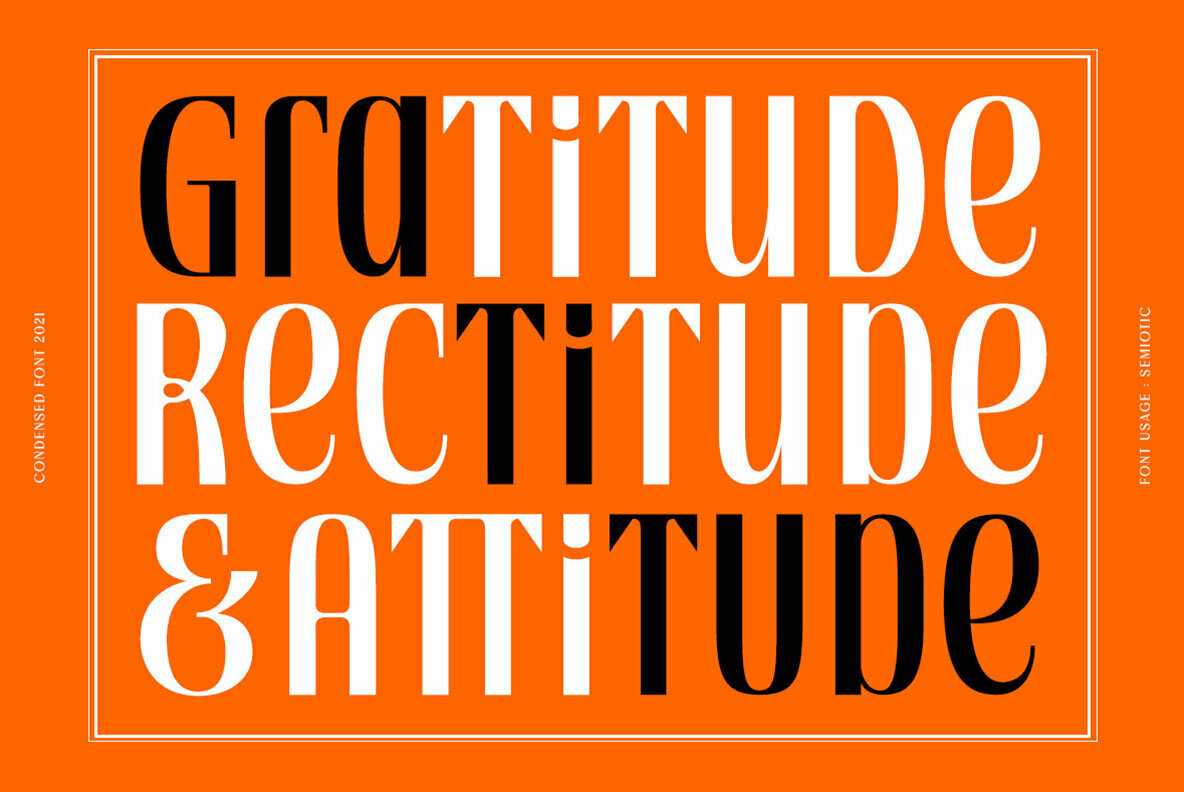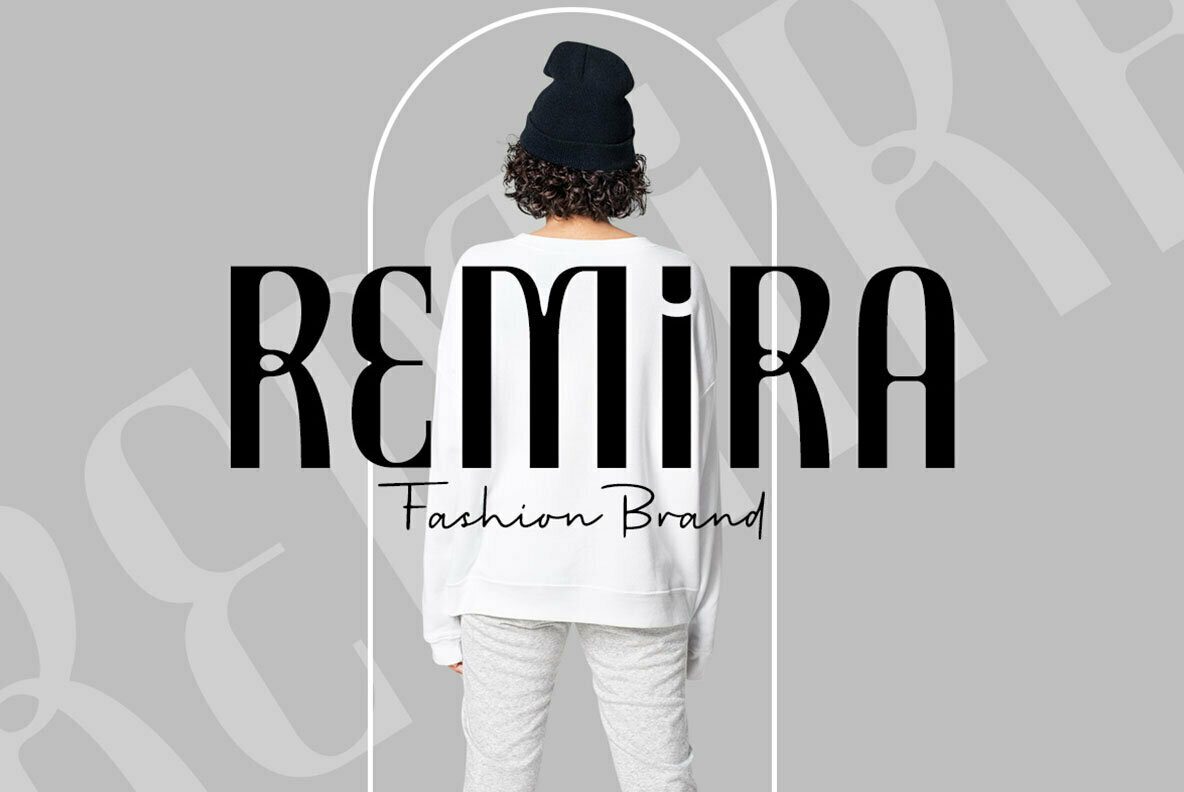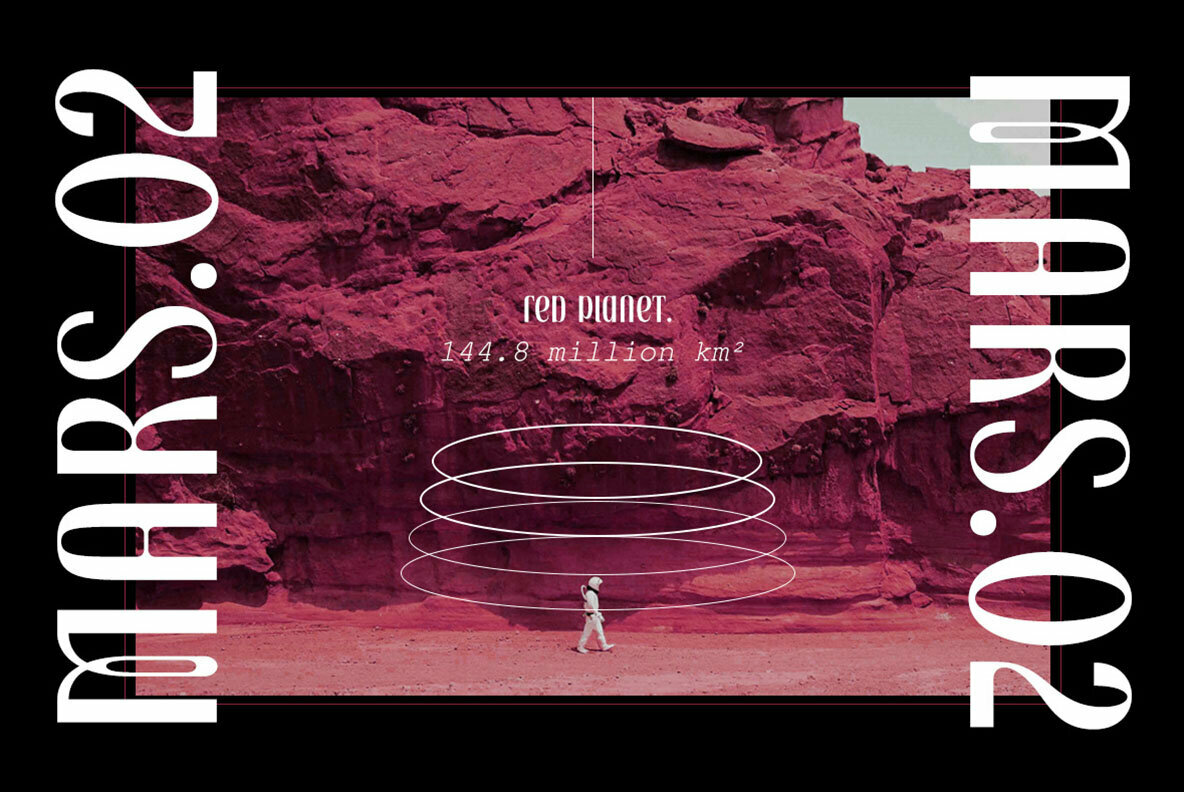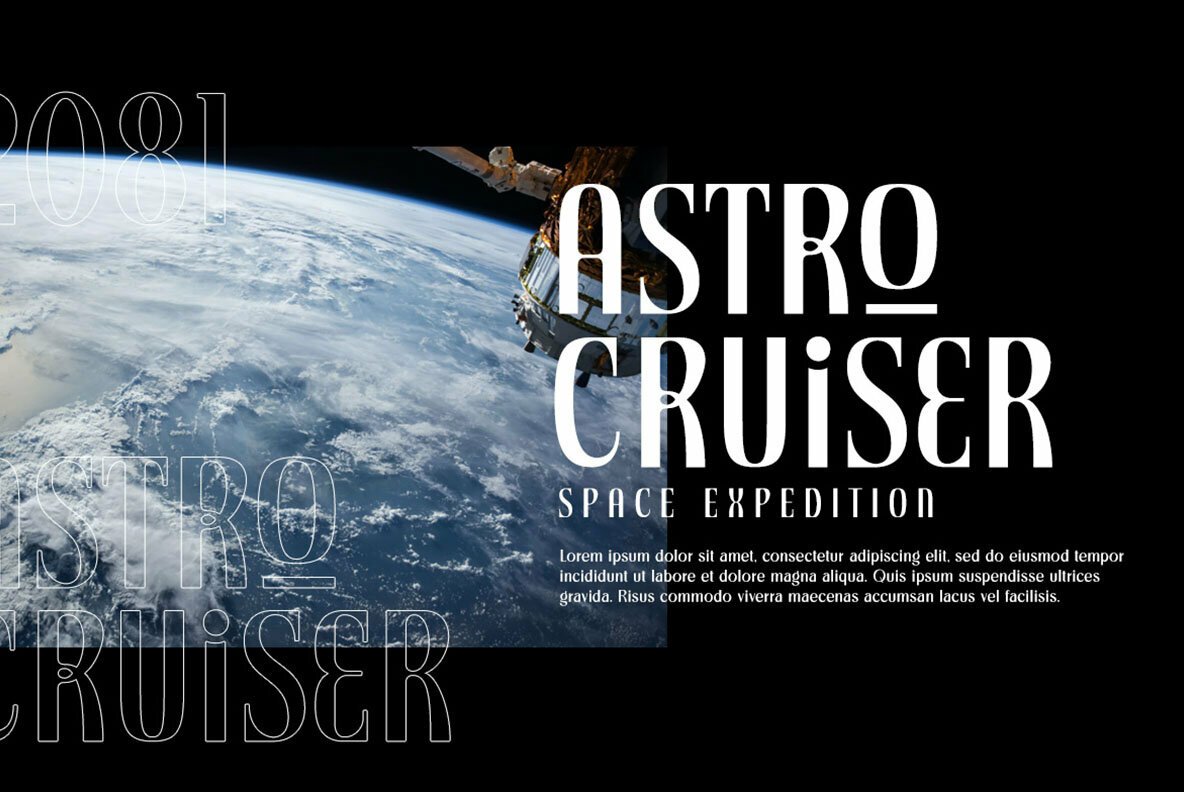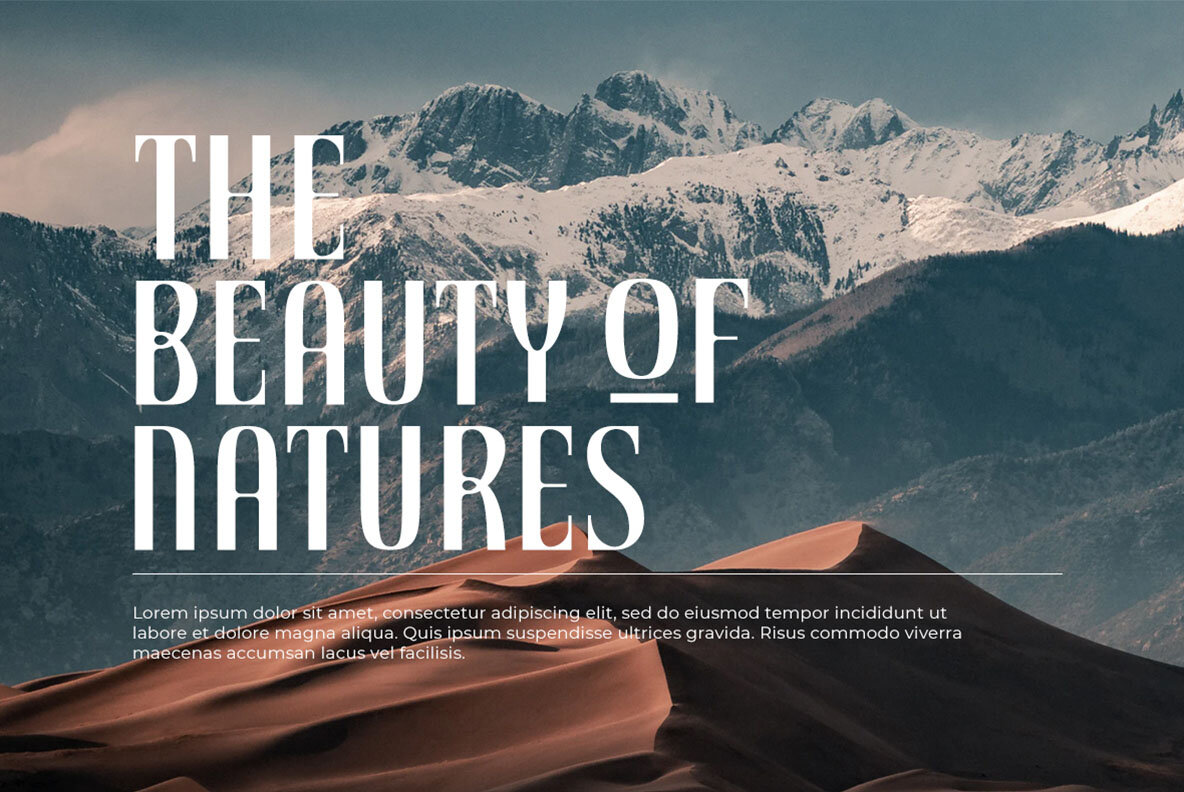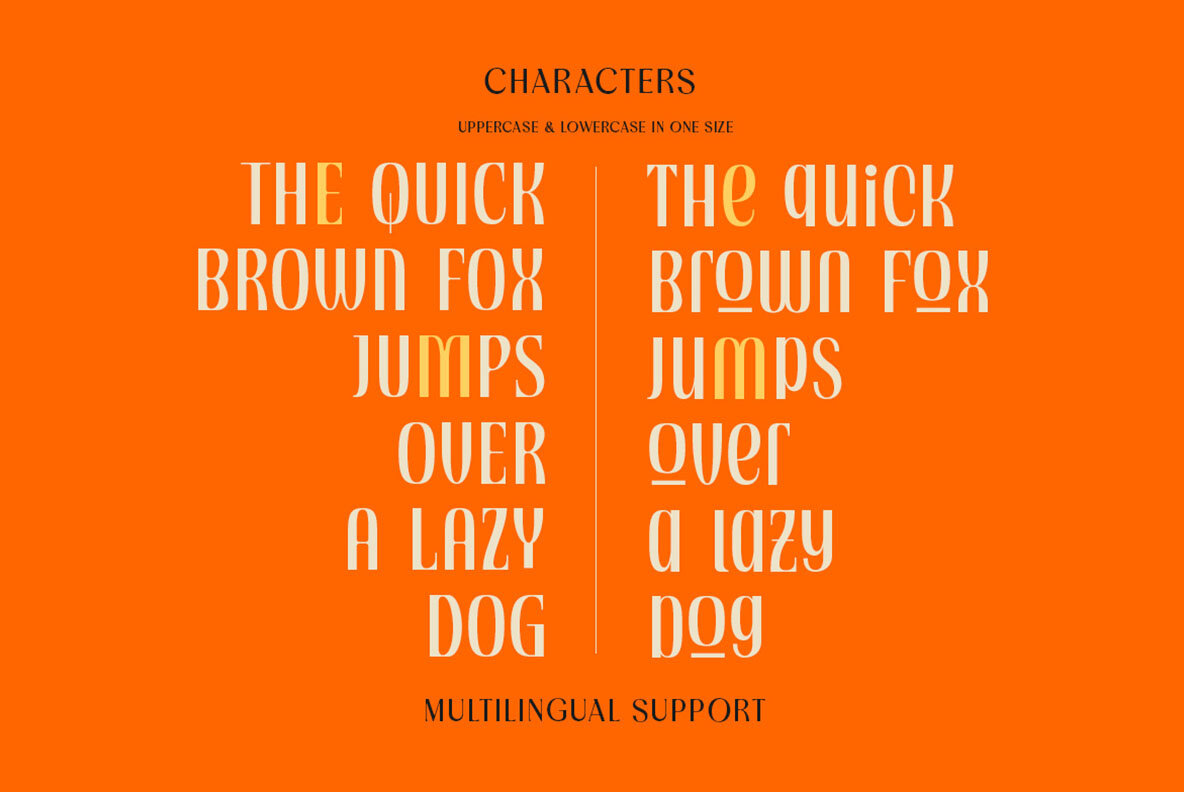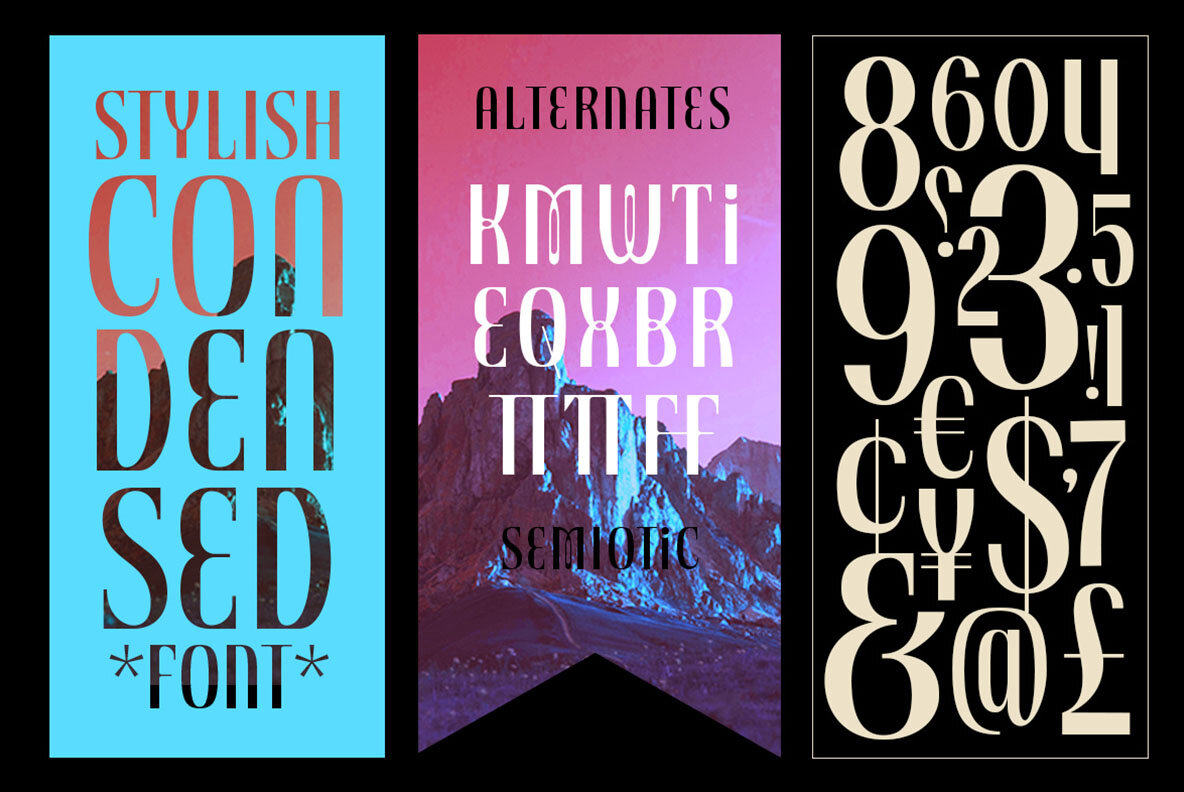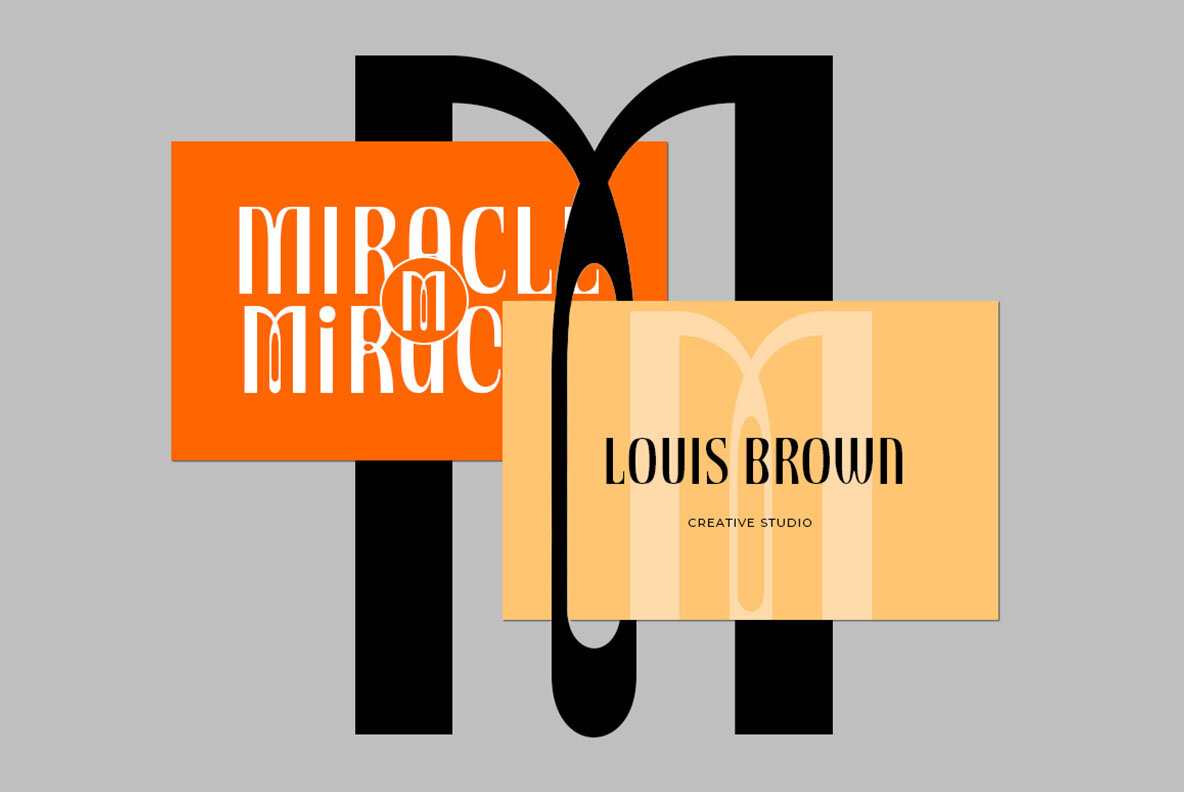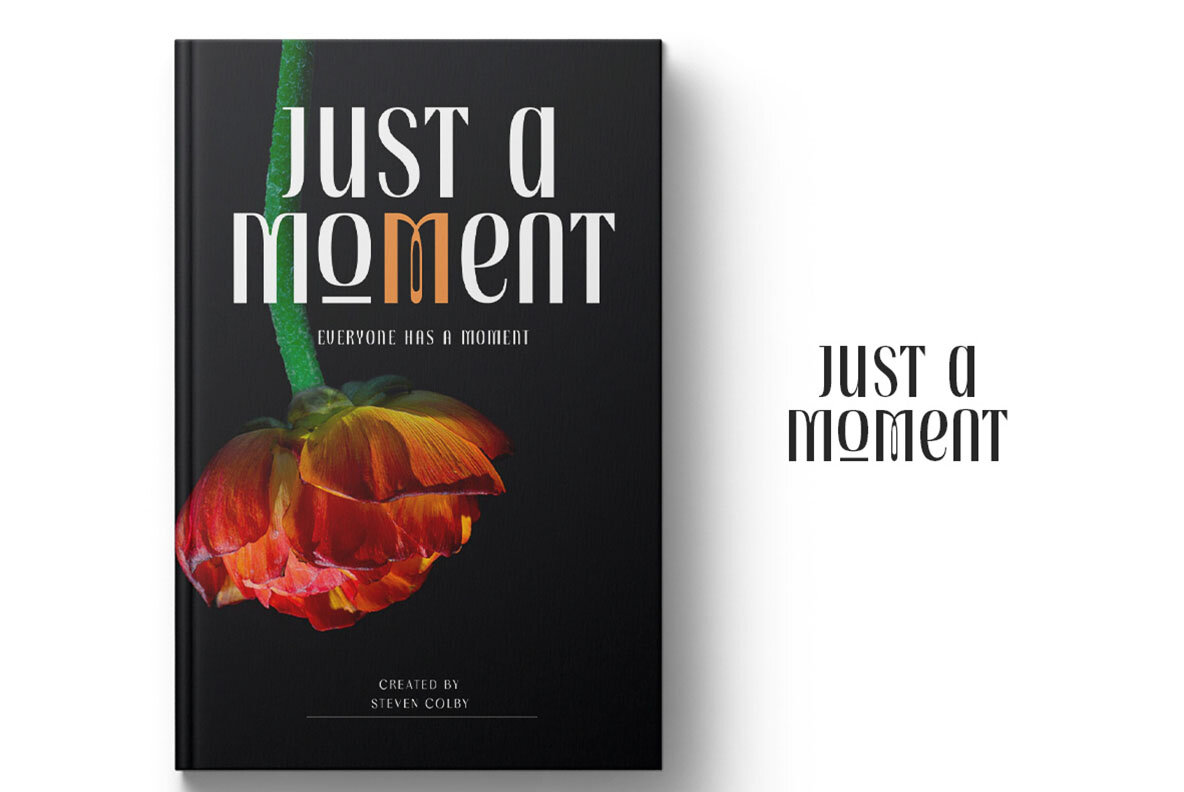
Semiotic Font
Semiotic Regular
Semiotic, by Letterhend Studio, offers a unique typographic solution with its uniform uppercase and lowercase size. This makes it an exceptional candidate for crafting distinctive wording in projects where continuity and style are paramount. Whether you're designing logos, headlines, or formal invitations, Semiotic adapts to various applications beautifully, from magazines and books to packaging and greeting cards.Semiotic: A Stylish Condensed Font with Identical Case Sizing